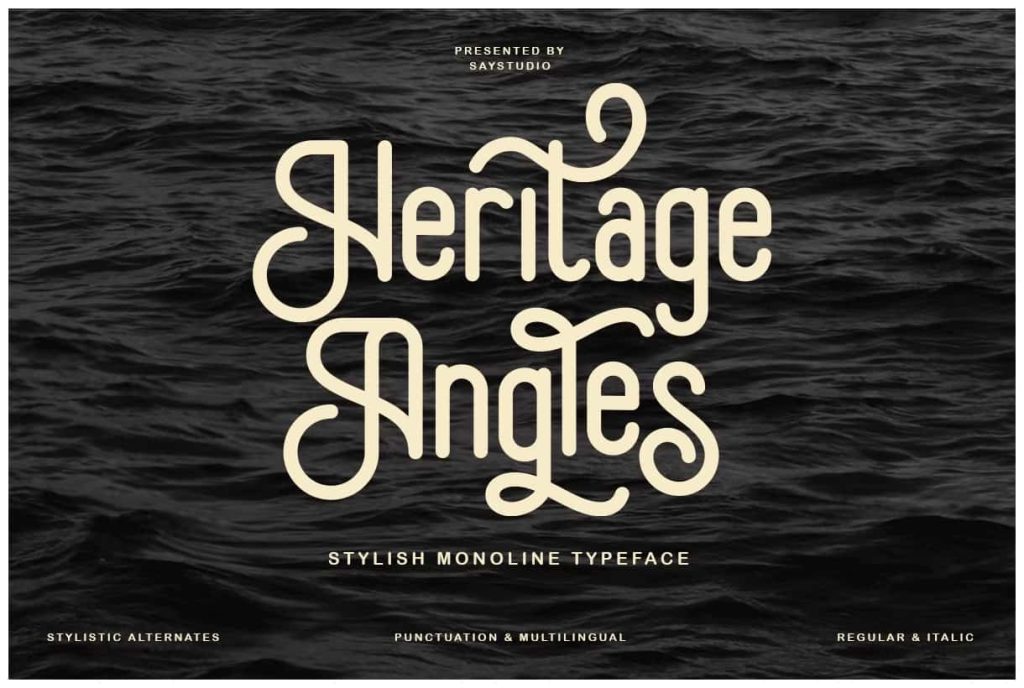
Heritage Angles is rounded sans serif fonts with charming alternate arch. You can use it to conveying the perfect design balance between modern and easy going.